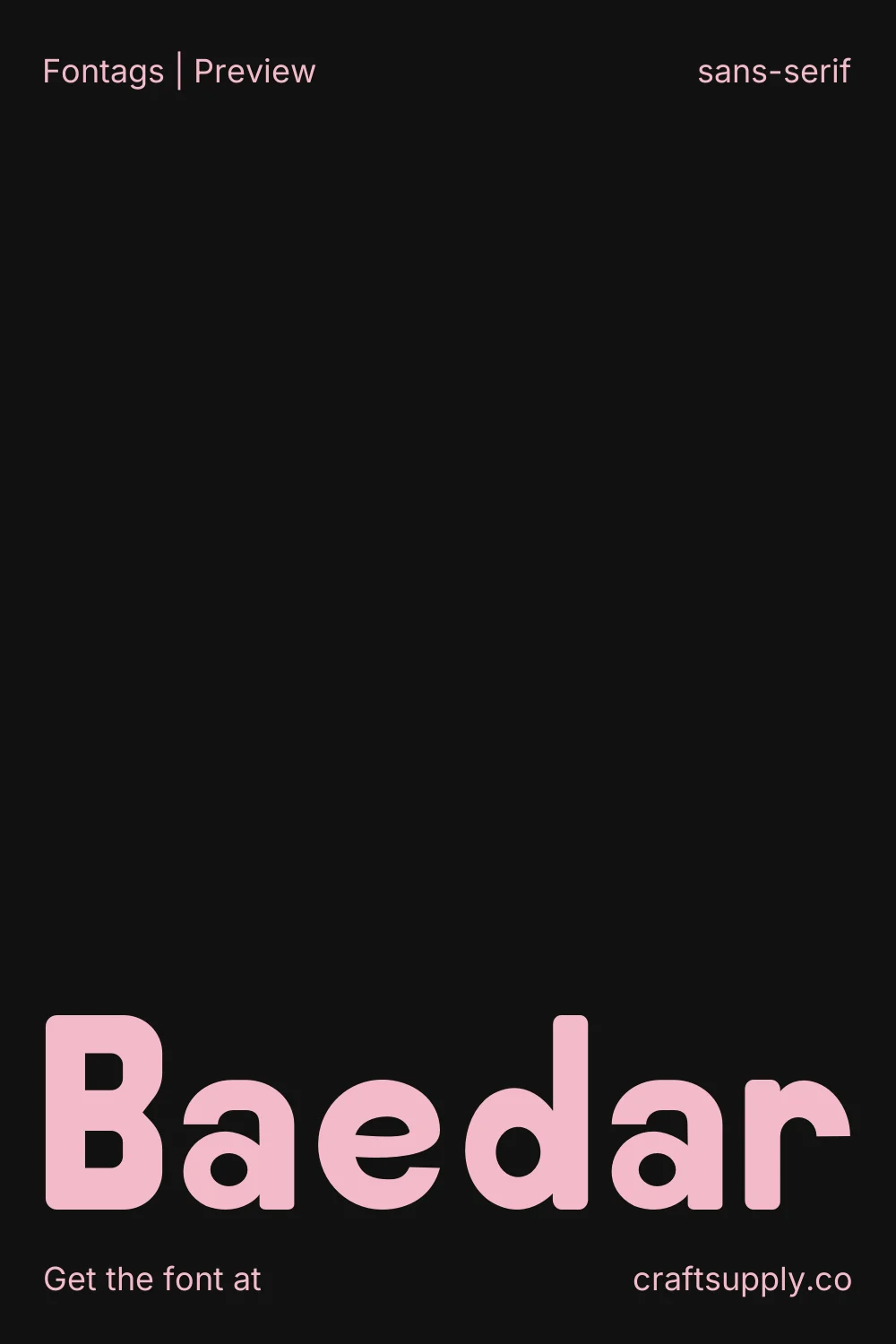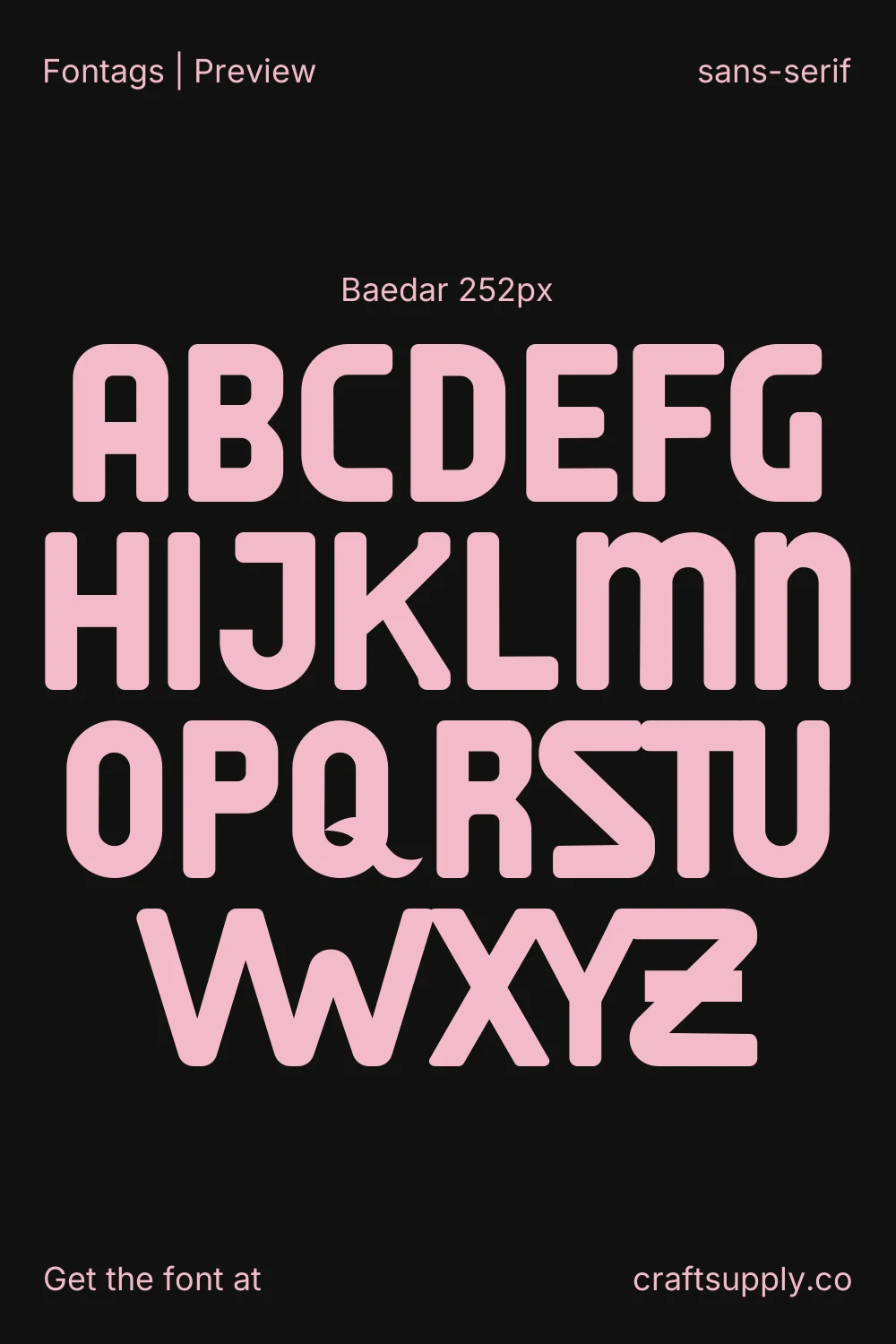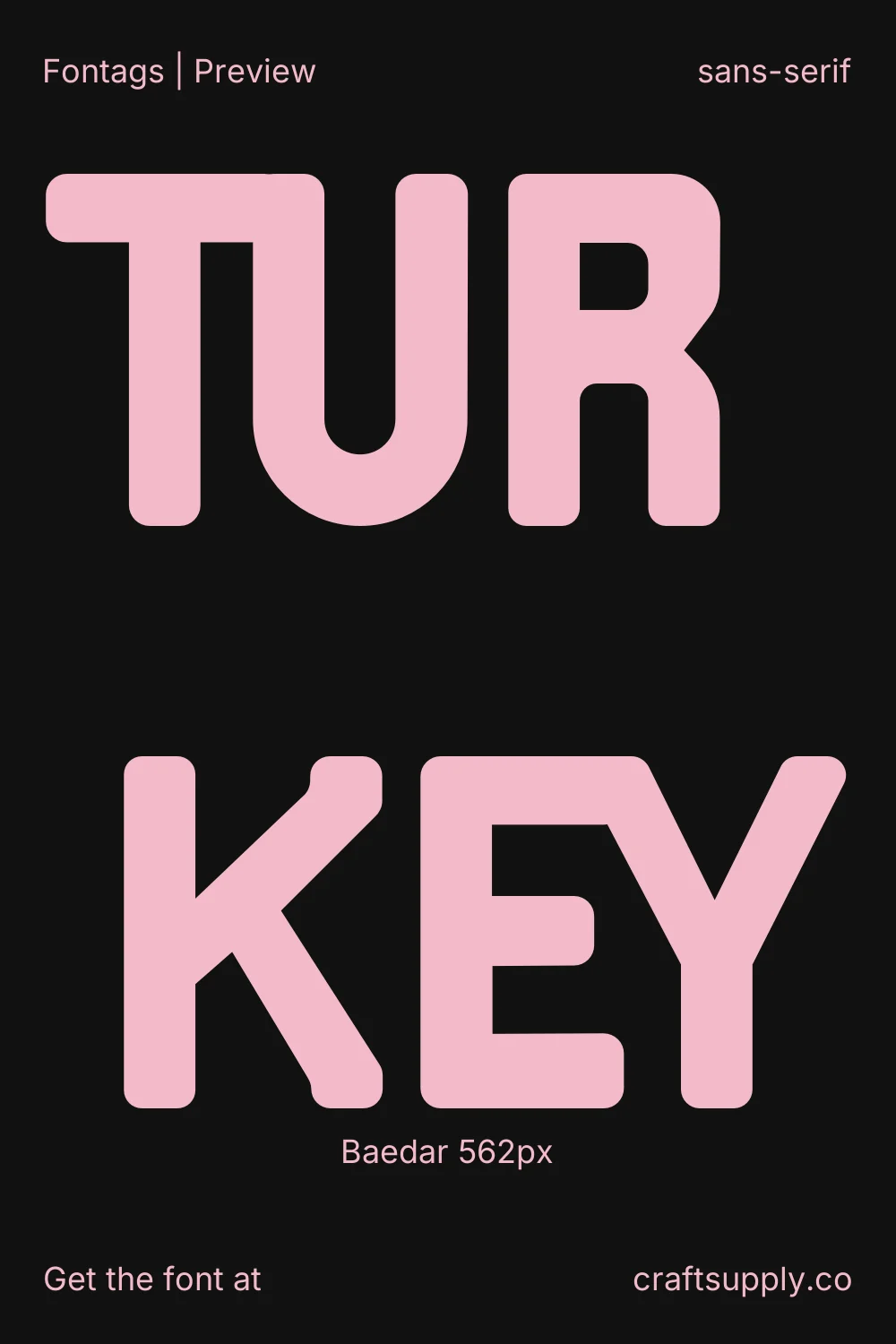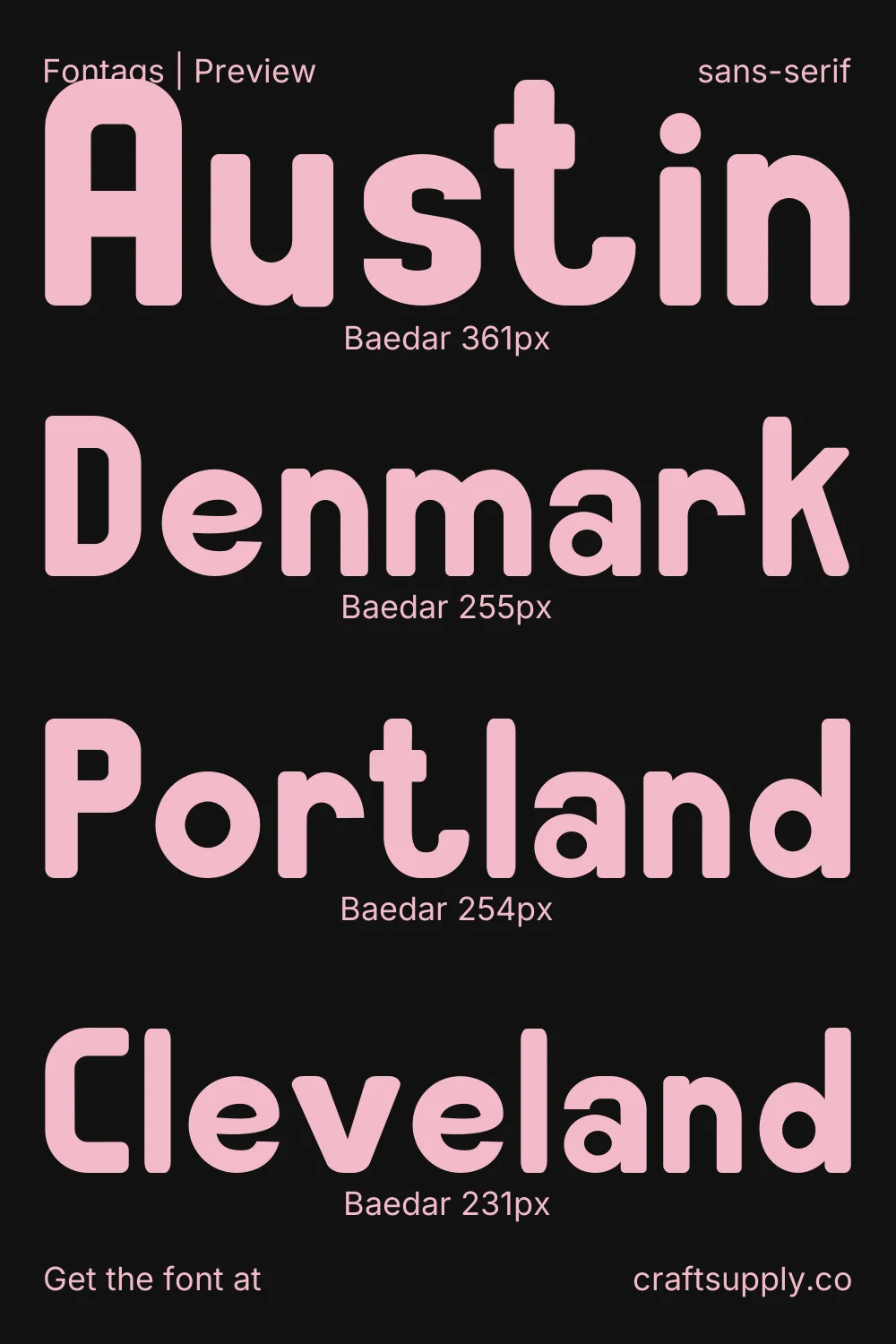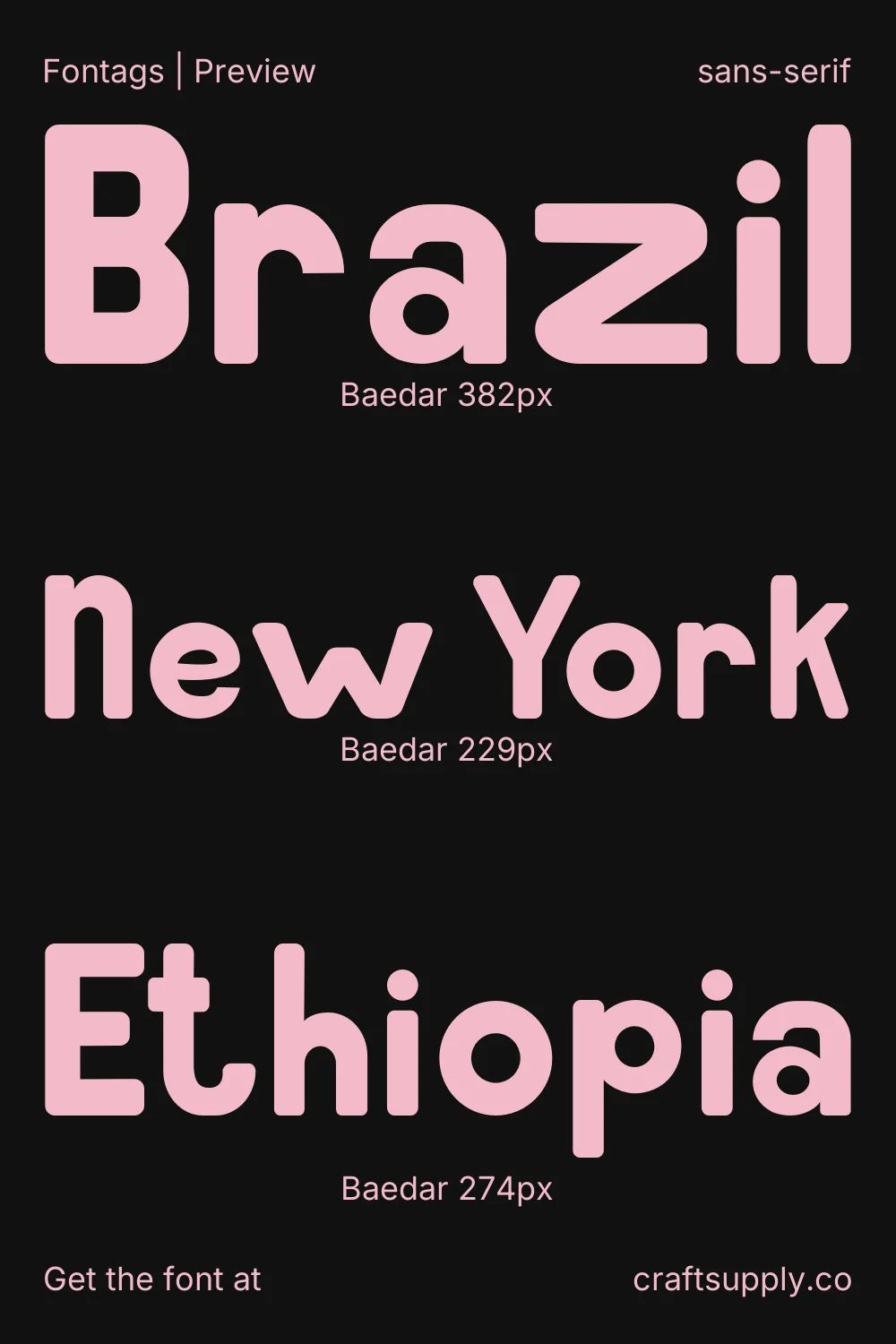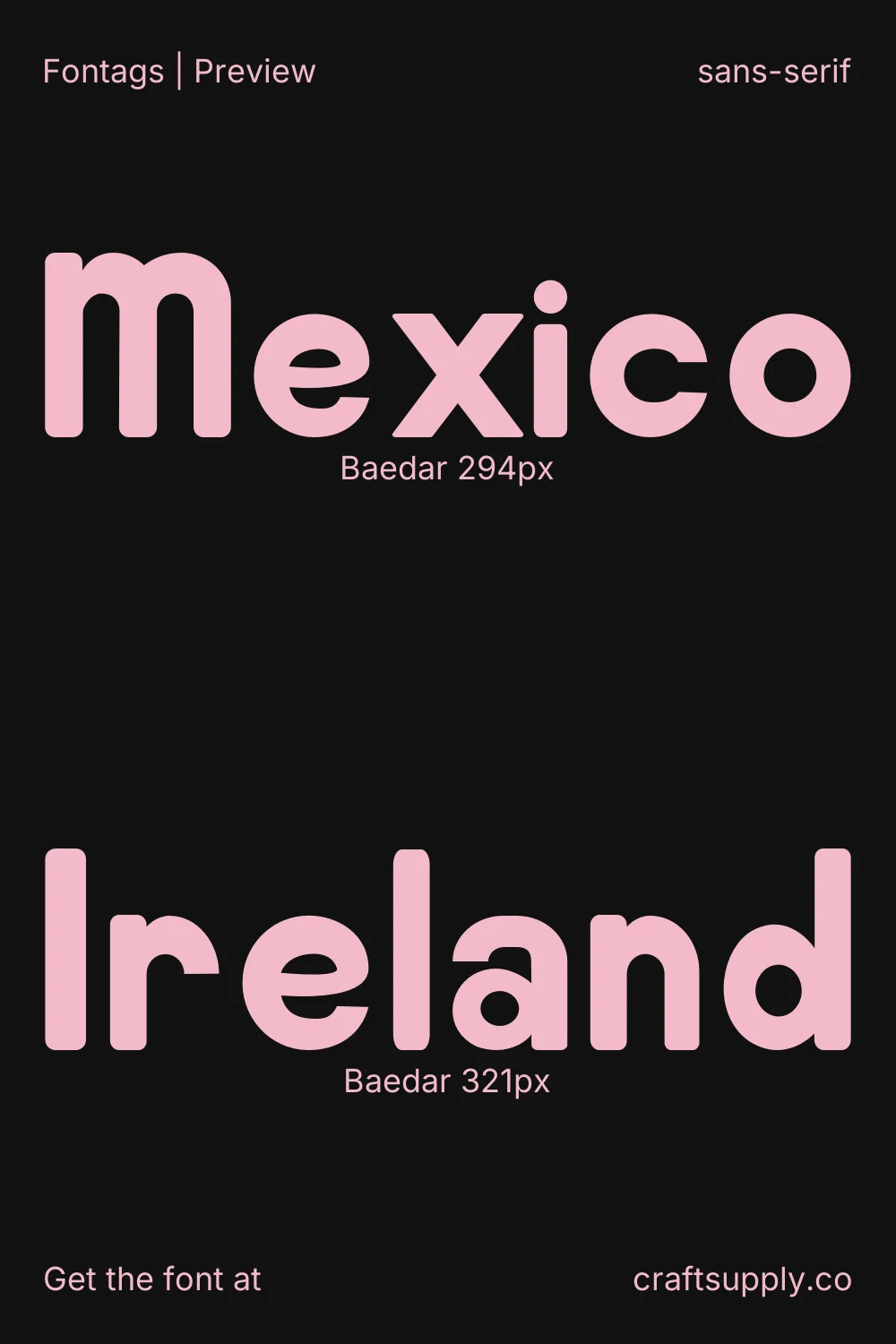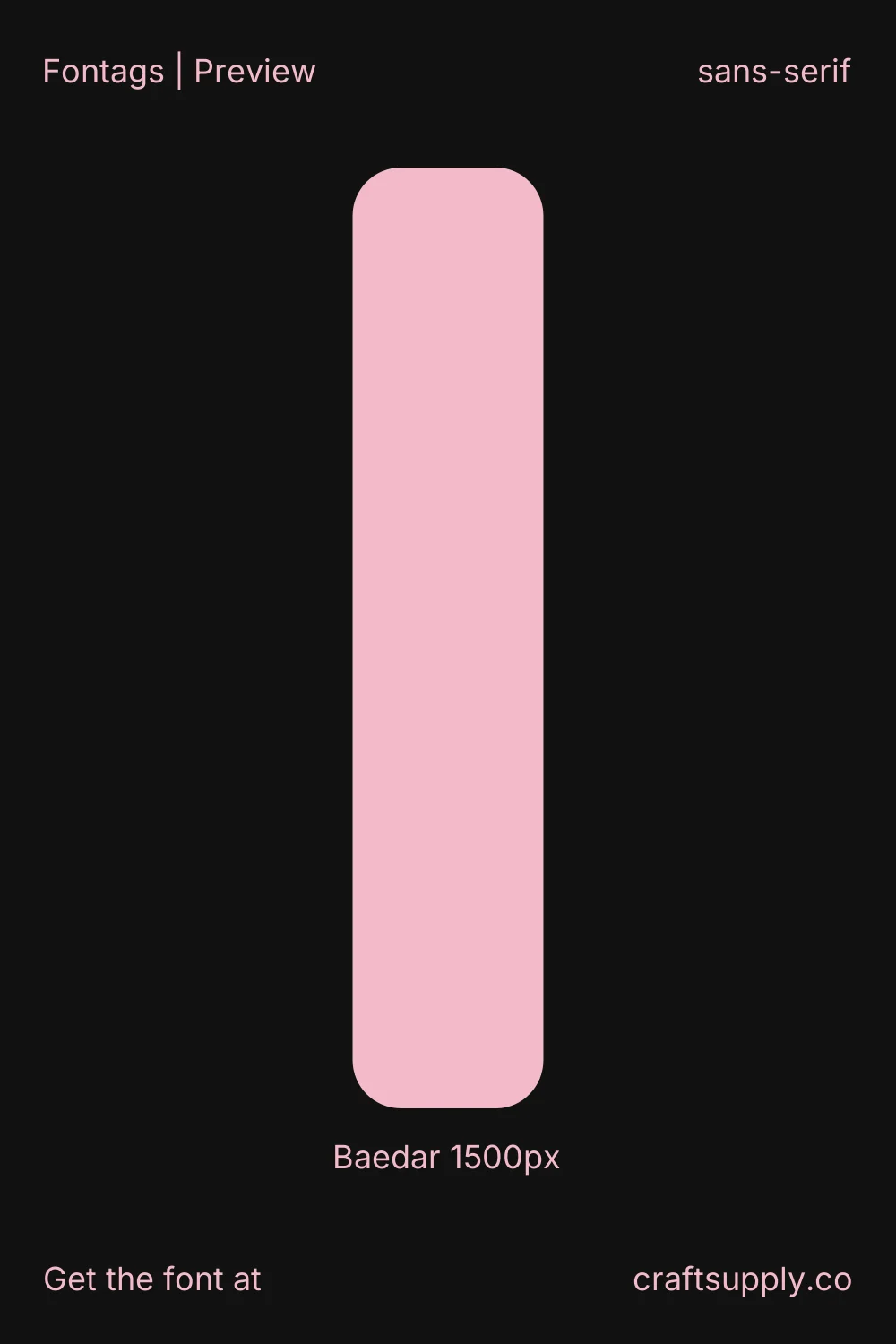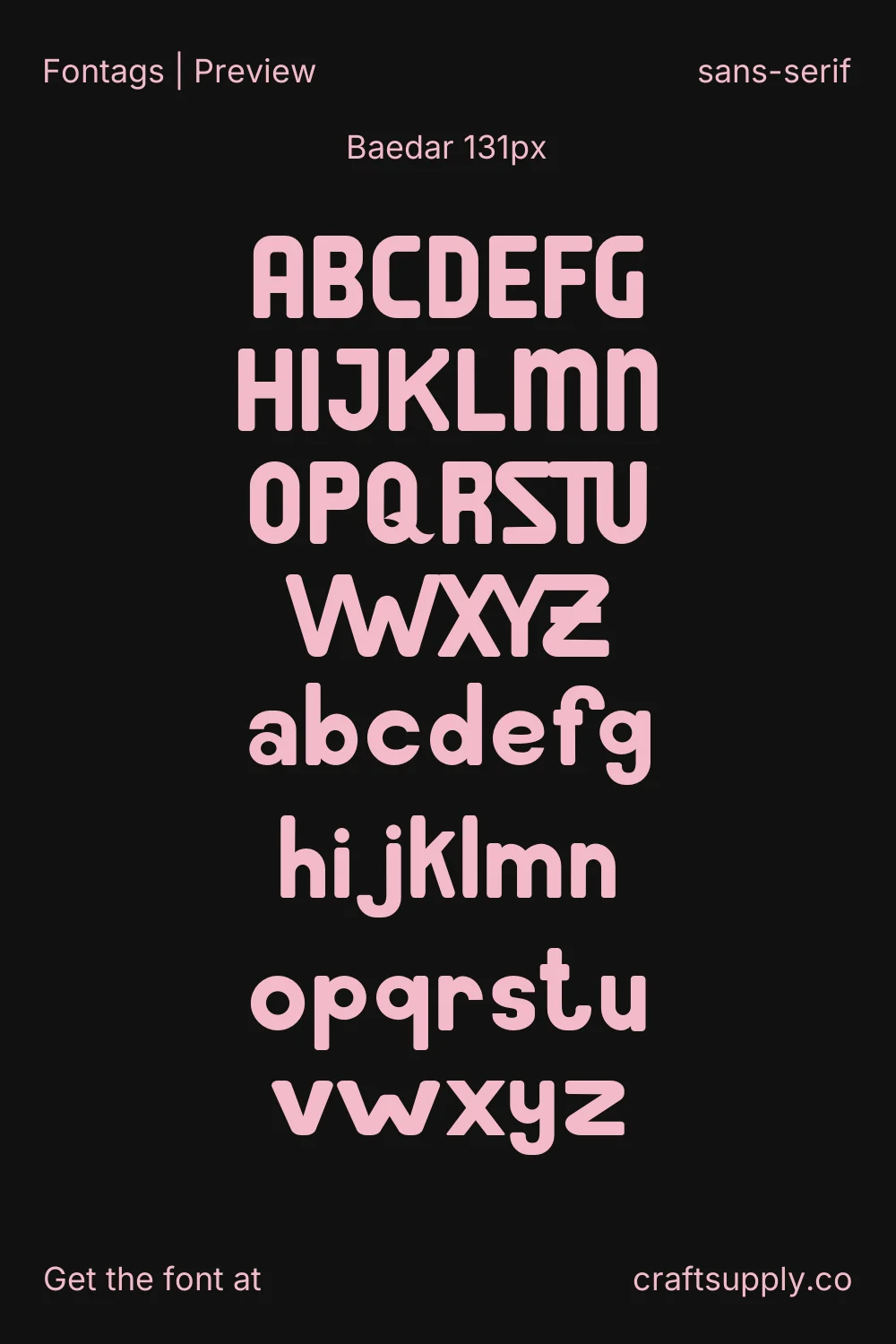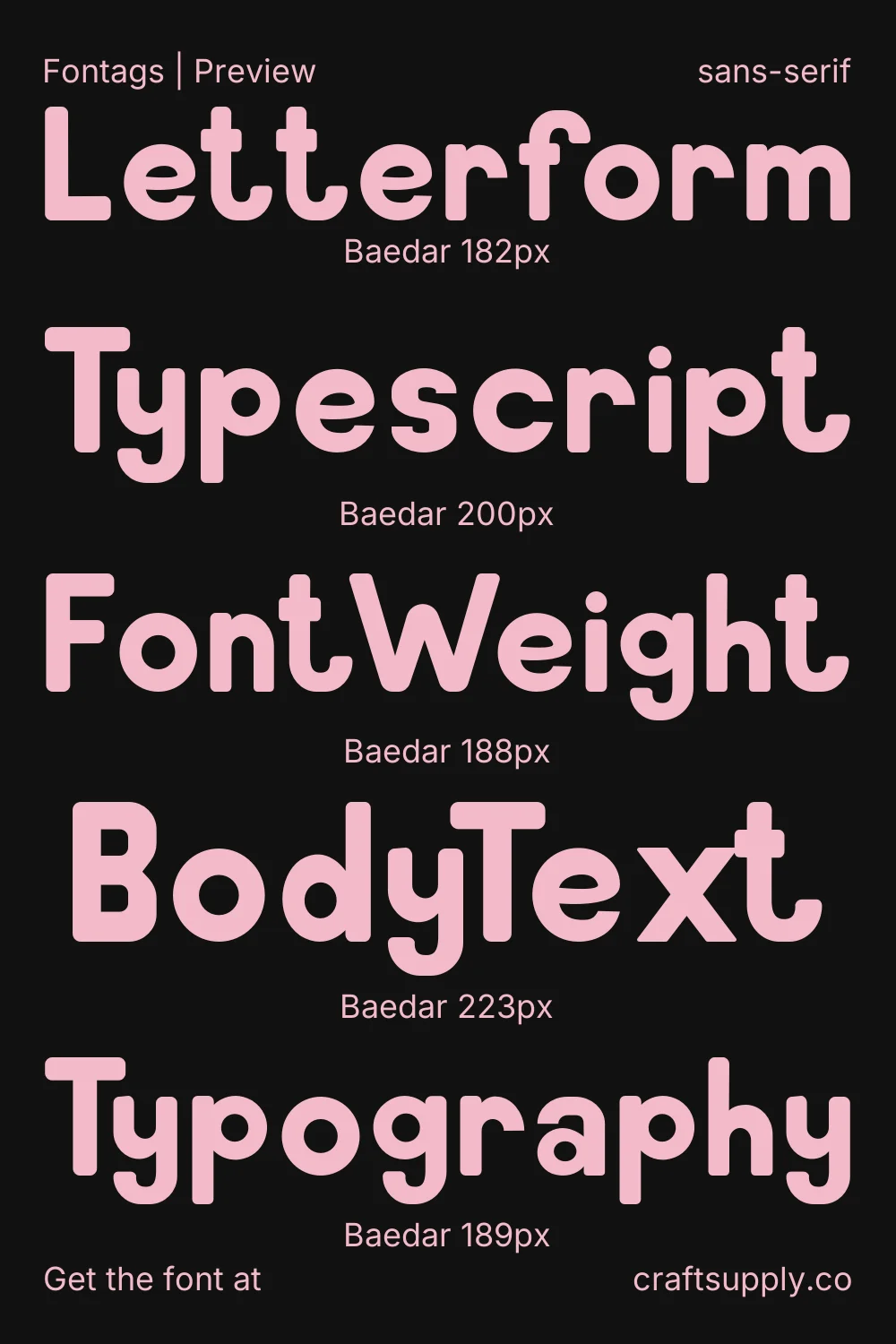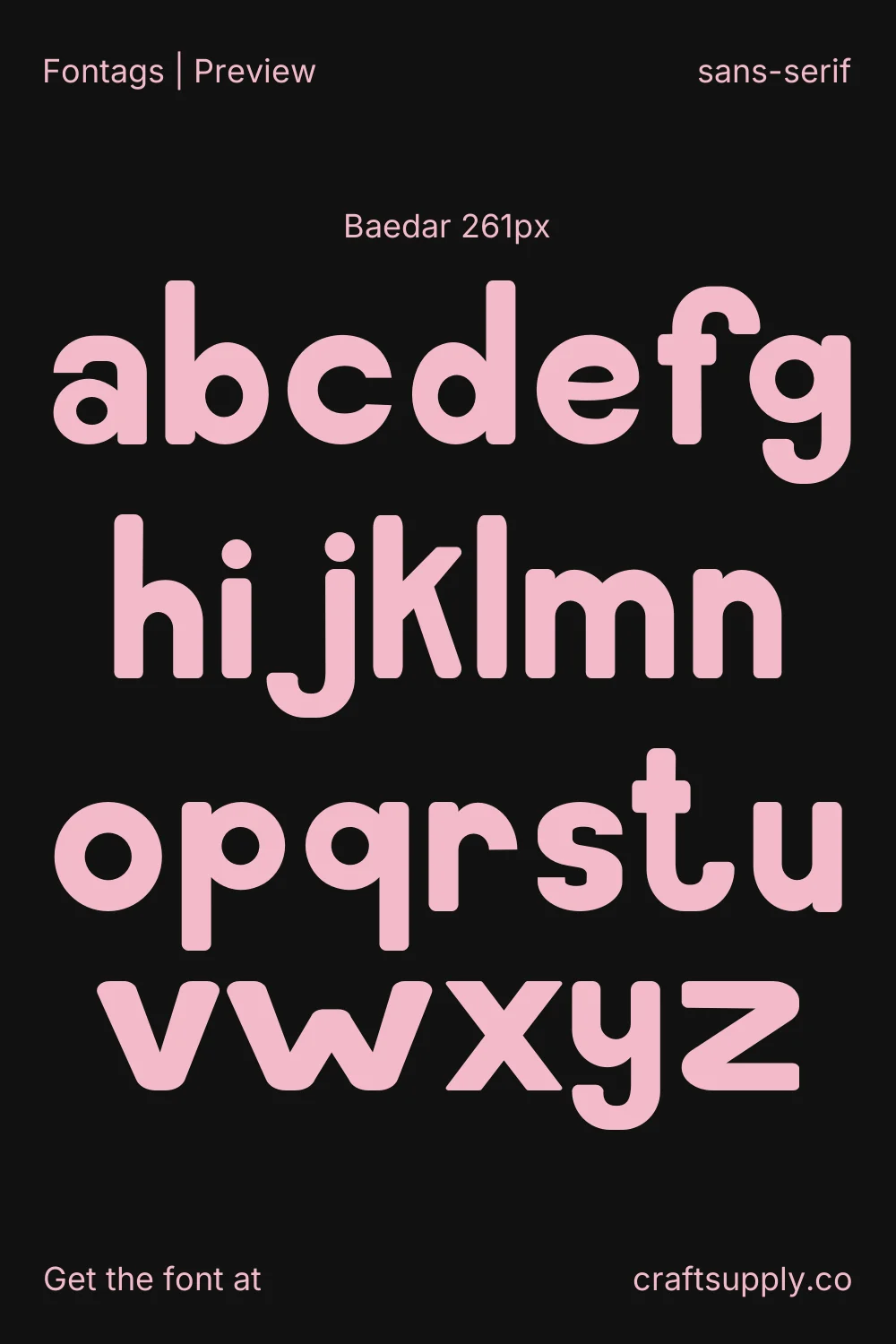
Baedar
Baedar is a bold rounded sans serif font that combines strong presence with approachable warmth. Its softly rounded corners create a friendly and inviting personality while maintaining excellent readability. Perfect for headlines, branding, posters, social media content, and marketing materials where you need attention-grabbing text that feels welcoming and accessible.